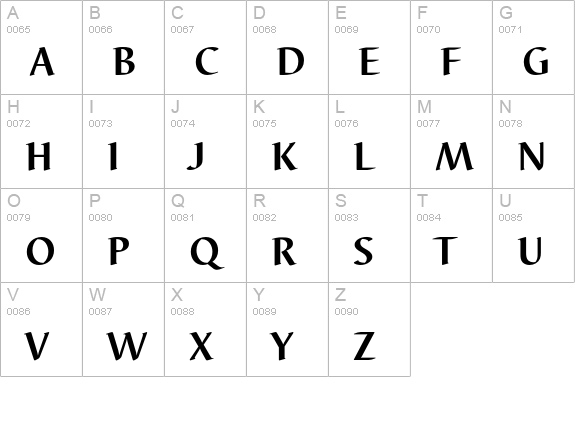
BarbedorEF-Bold is a strong, high-contrast variant in the BarbedorEF typeface family \xE2\x80\x94 well suited to headlines, attention-grabbing titles, and strong calls-to-action.
BarbedorEF-Bold is a striking and bold font that exudes confidence and modernity. With its sharp angles and clean lines, this font commands attention and makes a bold statement. Perfect for headlines, titles, and other attention-grabbing text, BarbedorEF-Bold is sure to leave a lasting impression. What makes BarbedorEF-Bold even more appealing is that it is free to download at FontsMarket.com. This means you can easily access this stylish font and use it in your projects without any cost. Whether you're working on a design project, creating promotional materials, or simply looking to add a touch of sophistication to your work, BarbedorEF-Bold is a fantastic choice that won't break the bank. Get your hands on this free font today and elevate your designs with its bold and contemporary style.